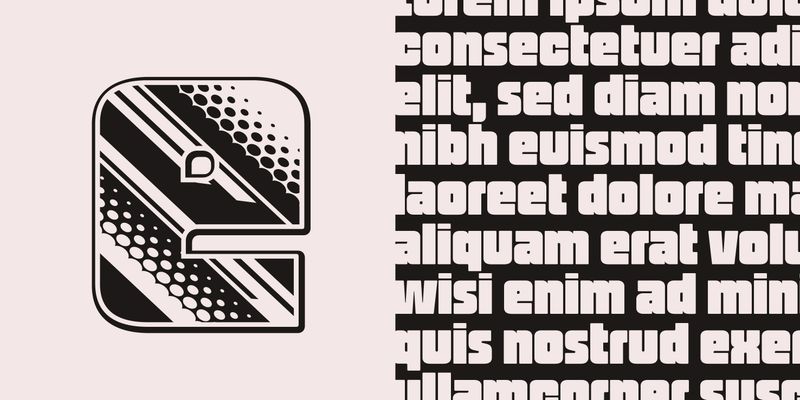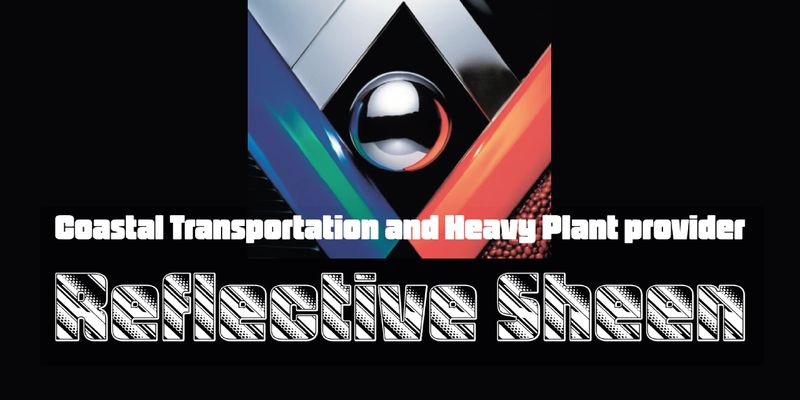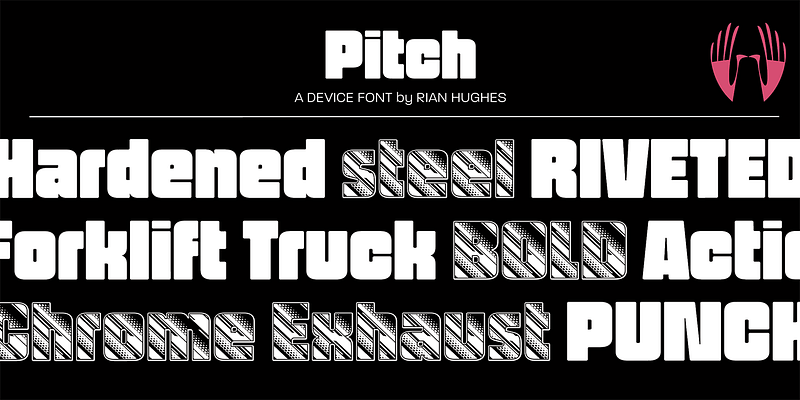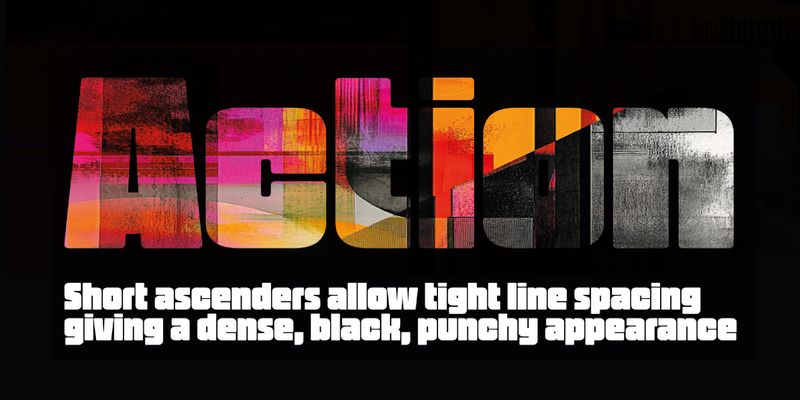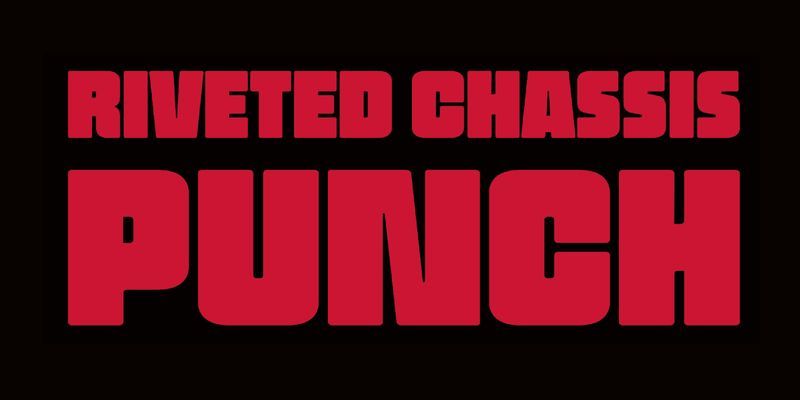
Heavy and impactful in black, shiny and decorative in Chrome, which is best used at larger sizes to show off the details.
Type, design and imagery by English illustrator and typographer Rian Hughes.